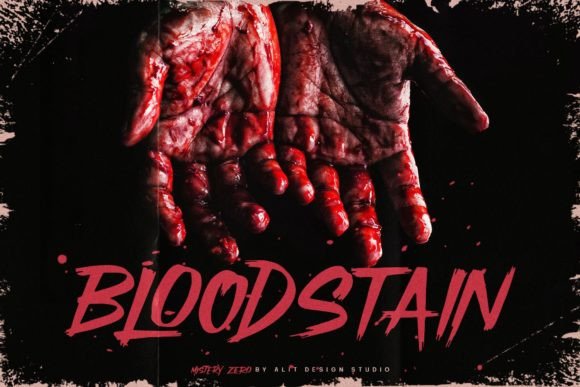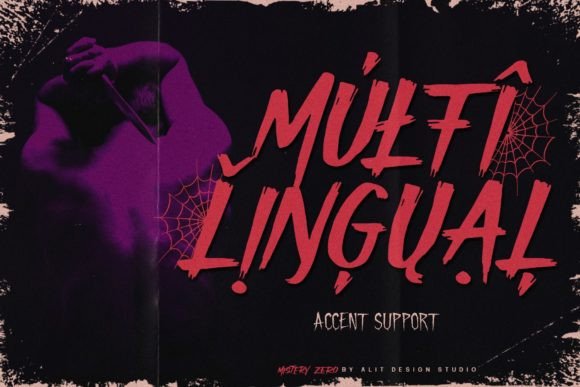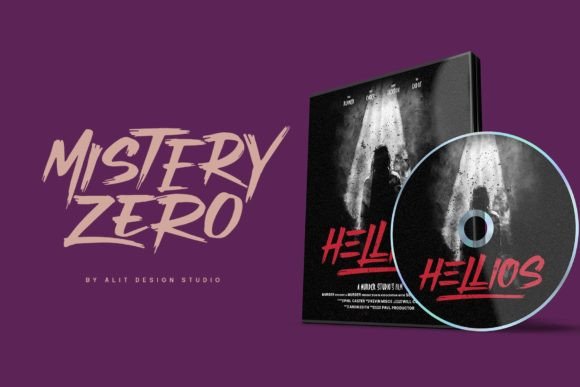
About Mistery Zero Font
Mistery Zero is a cool and spooky handwritten brush font. Not only it can help you create unique Halloween designs, but can also give a mysterious, creepy vibe to all your horror-themed projects. This font is PUA encoded which means you can access all the glyphs and swashes with ease!